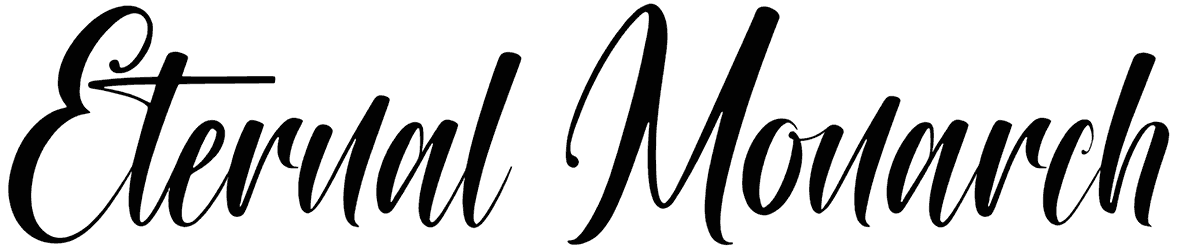
Eternal Monarch Font
The spiritual energy of a handwritten font like Eternal Monarch is so off the chart that you won’t know whether to focus on that or the visual beauty of it. Either way, you’re going to find plenty of features to admire about this cursive font of RB.
Long story short, you’ll like it a lot in your wedding websites, anniversary party invitations, art gallery posters, or anywhere else you can use such stylish characters to make things feel more inspired.